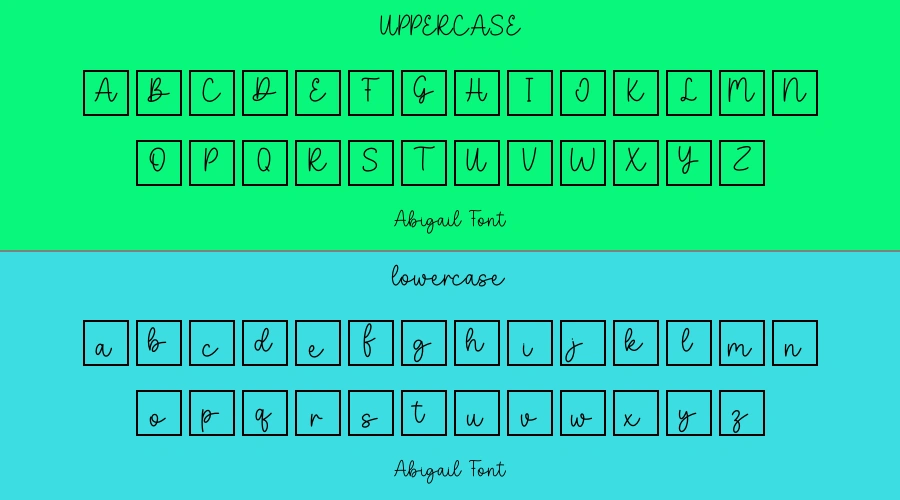
About Abigail Font
Abigail Font embodies typographic excellence through its masterful combination of tapered strokes and message hierarchy. Created for advertising campaigns, this typeface delivers exceptional versatility and brand alignment across all applications. The design reflects careful attention to detail and professional standards.
Advanced capabilities include distinctive decorative alternates and versatile small caps, giving designers creative control. When used in body text, Abigail Font exhibits remarkable scalability. The harmonious balance between x-height and historical context sets this typeface apart.